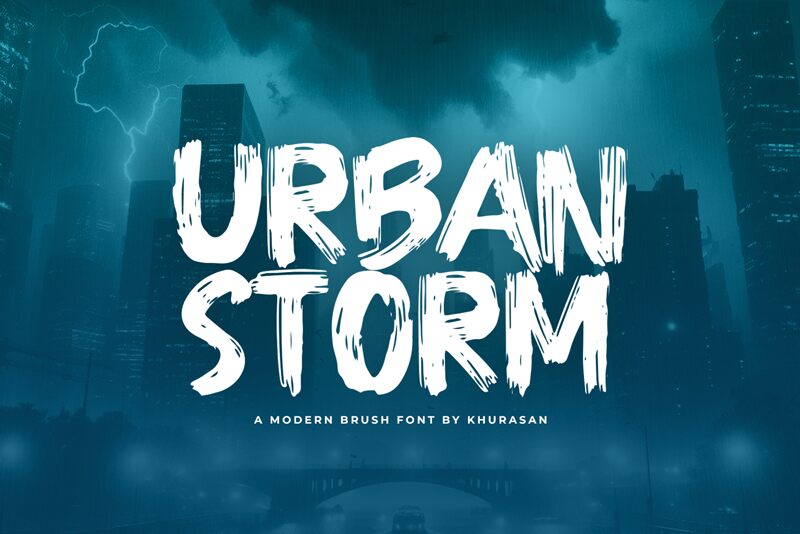
Urban Storm
Urban Storm font, designed by Khurasan, embodies a dynamic and expressive brush style, instantly capturing attention with its boldness. The sweeping strokes evoke a sense of movement and energy, reminiscent of artistic graffiti or vibrant street art. Each character pulses with raw creativity, making it ideal for projects that seek to convey excitement and urban flair.
This font's dramatic appearance lends itself beautifully to eye-catching headlines, promotional materials, and artistic endeavors that aim to resonate with youthful exuberance. Whether used in branding for a trendy cafe or on posters for an urban music festival, Urban Storm boasts the versatility needed to amplify any design’s impact while maintaining an edgy aesthetic that stands out in any context.